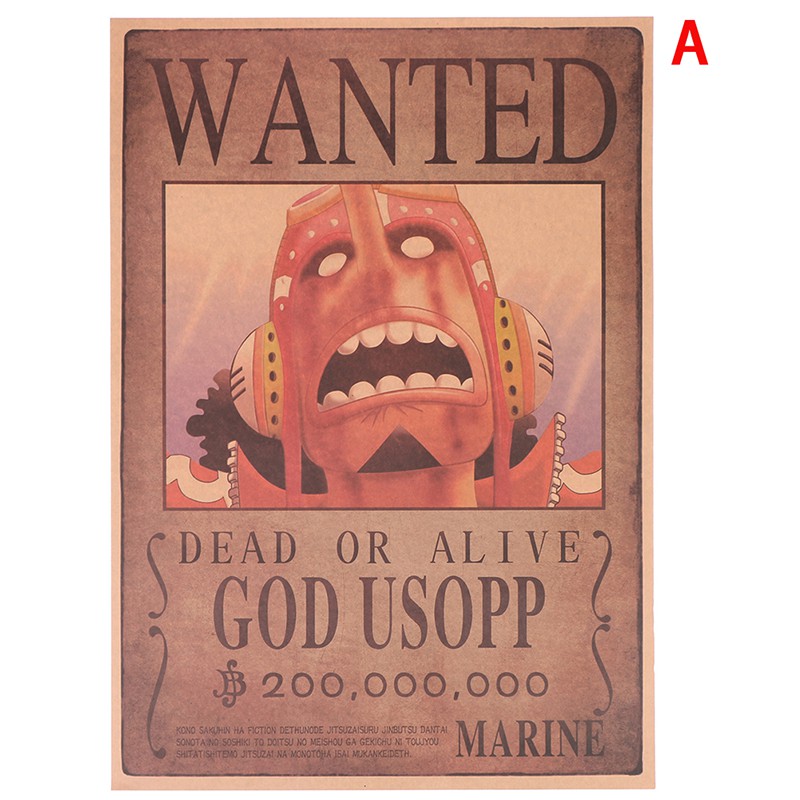
Wanted Poster Font One Piece
Wanted Poster Font One Piece. Looking for one piece fonts? Check it for free with typograph.
It Is A Decorative Font Created In 2006 And Has Been Downloaded 77,743 Times.
Boa hancock 's wanted poster as seen in episode 896. Easily add text to images or memes. And until today, i'm freaking amazed how it looks.
Kalau pernah nonton film anime one piece. I know the font used on the sidebar headers is prescott, which is pretty close i guess. Download the free one piece font by phantom king graphics.
It includes lower and uppercase letters and characters. Byrnndi world 's wanted poster. Later on, unfasten the document which you will get from here then introduce the first ttf record into your working frameworks.
Download that can be used in. Although the belly is a universal currency used. Each of the styles in this clean typeface is similar to proxima nova that has contained 871 characters and 1219 number of glyphs.